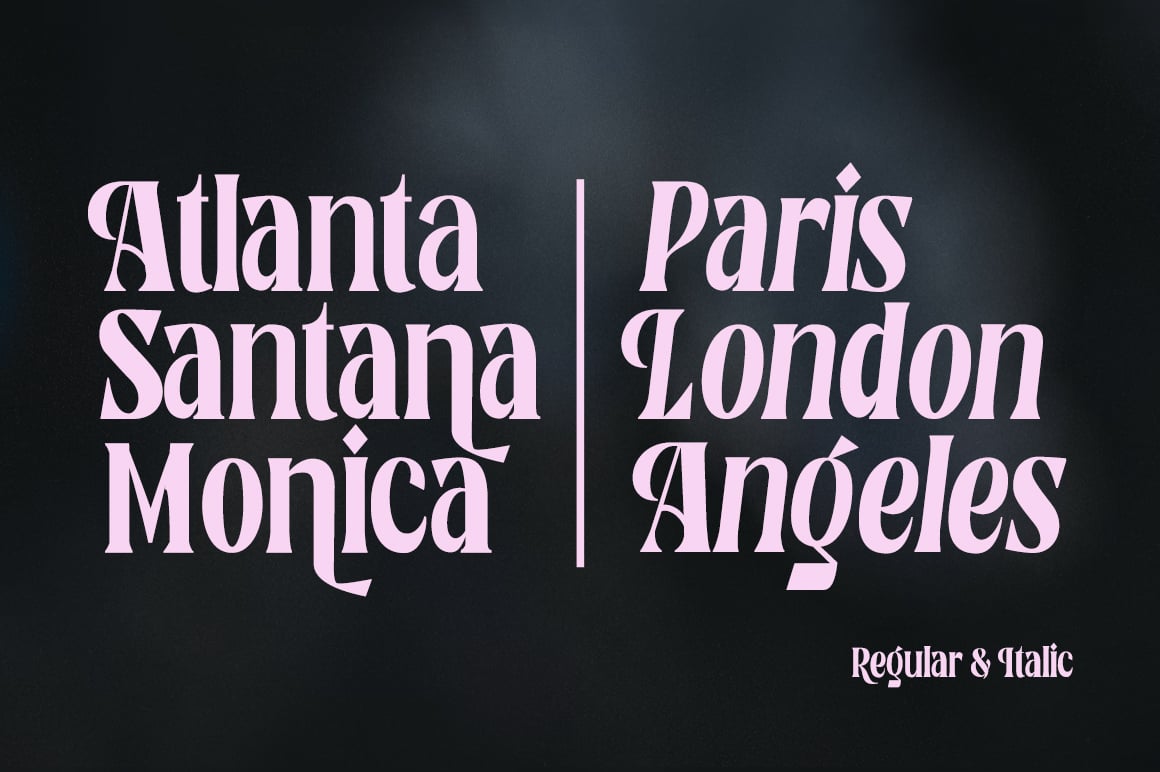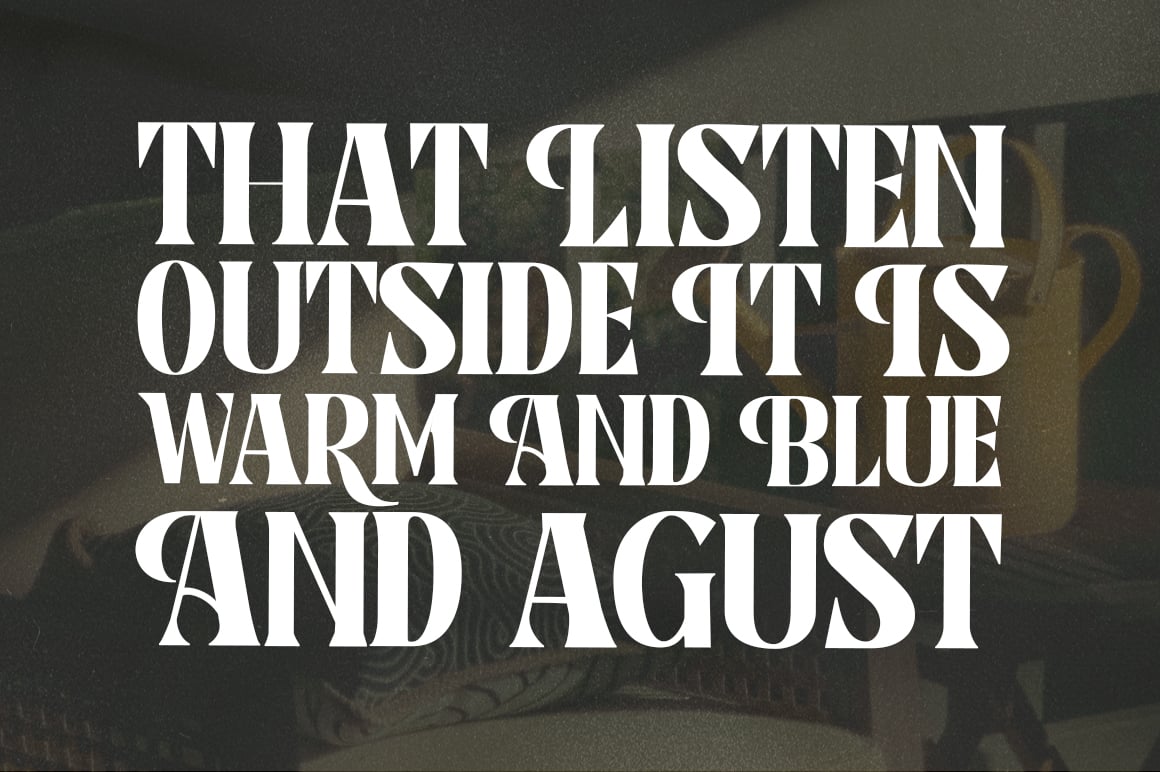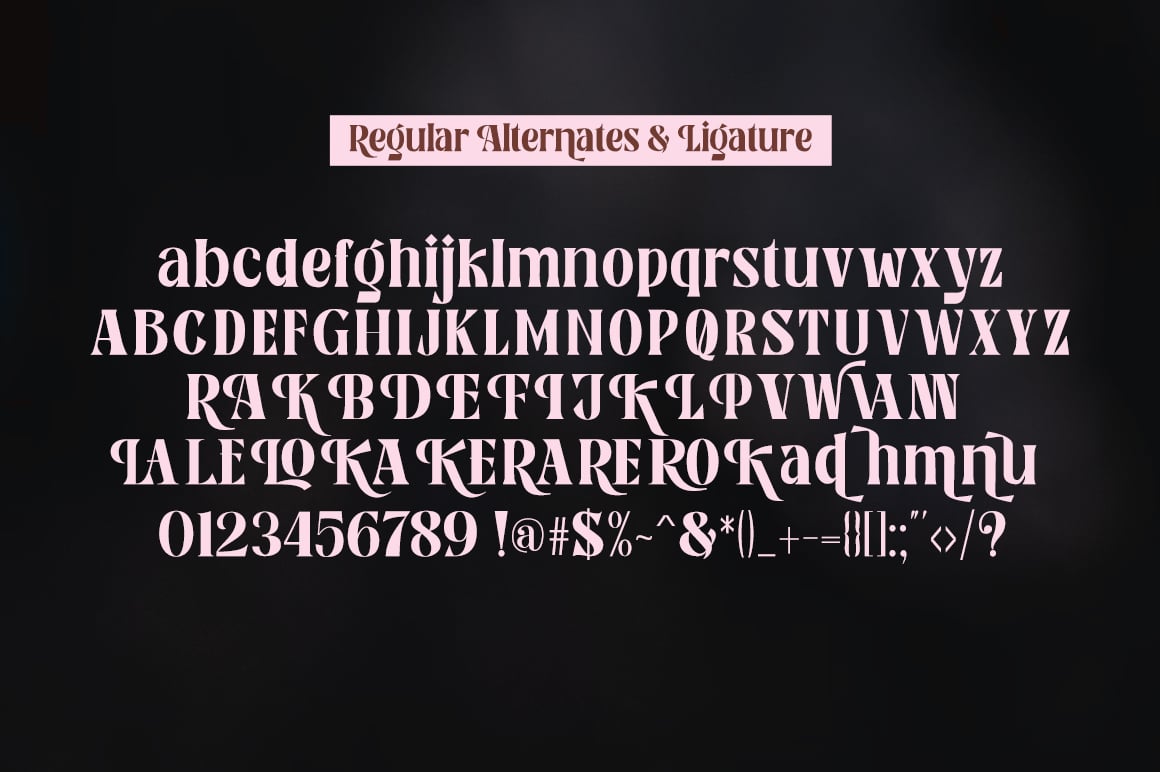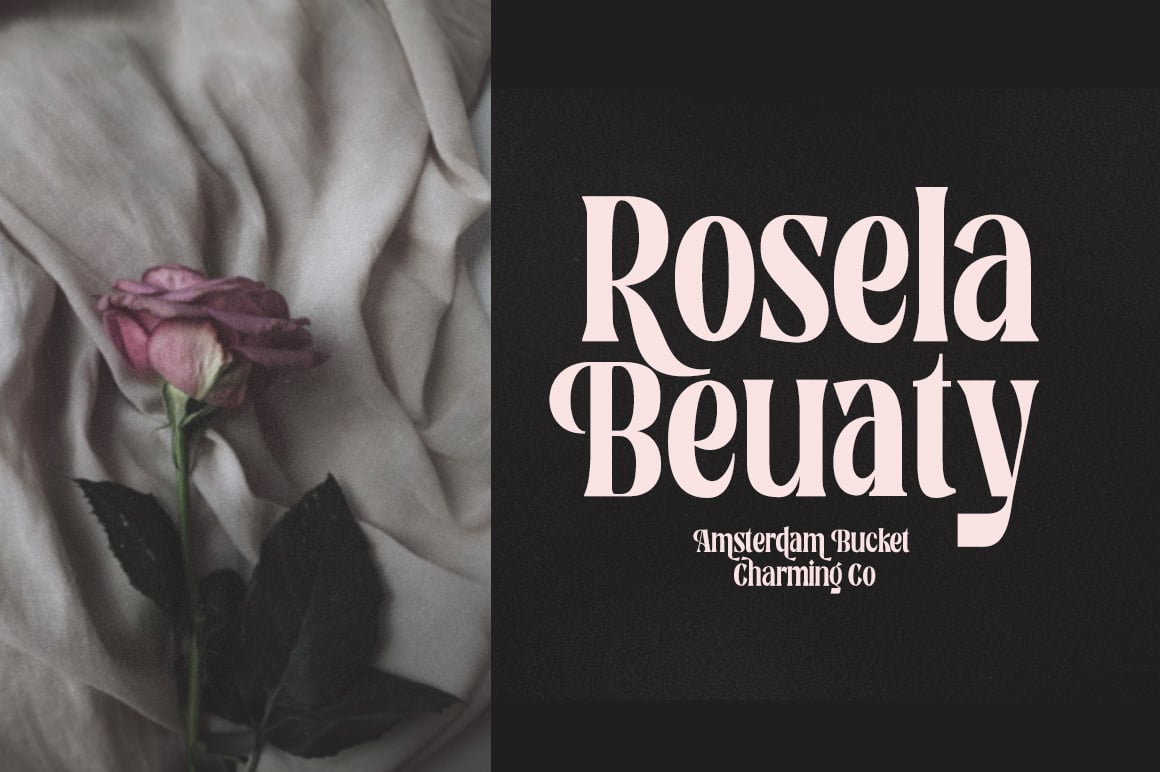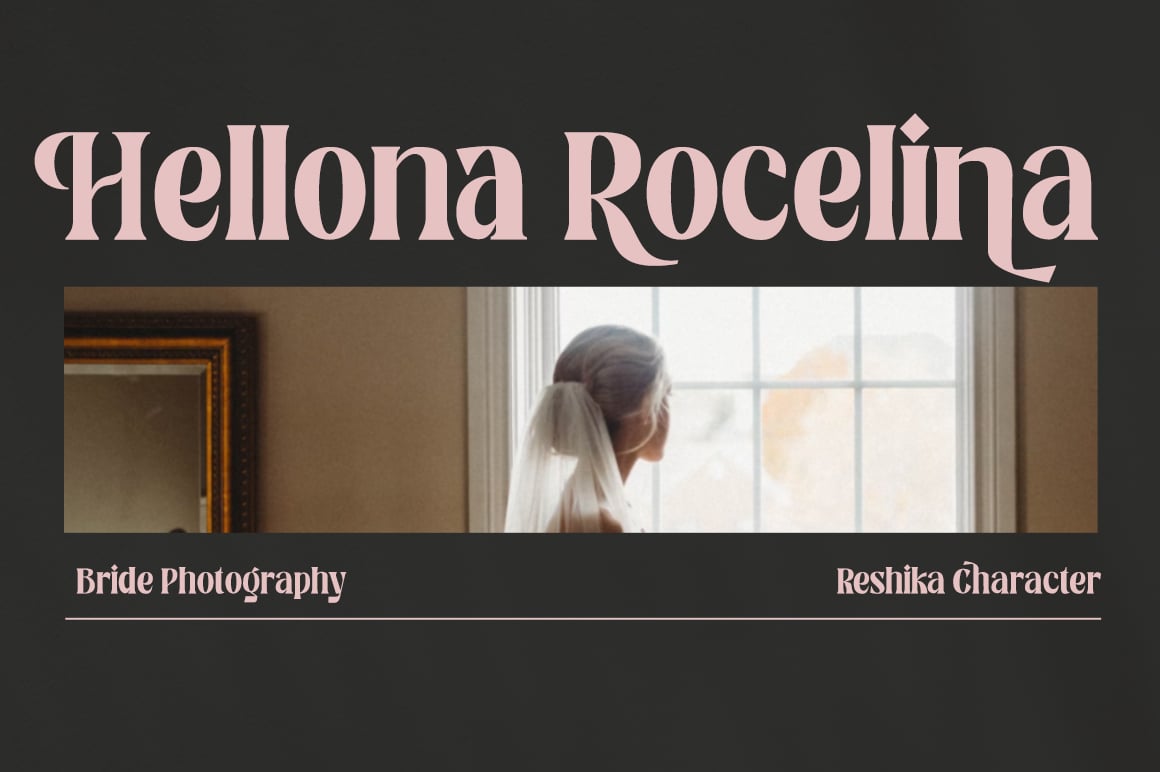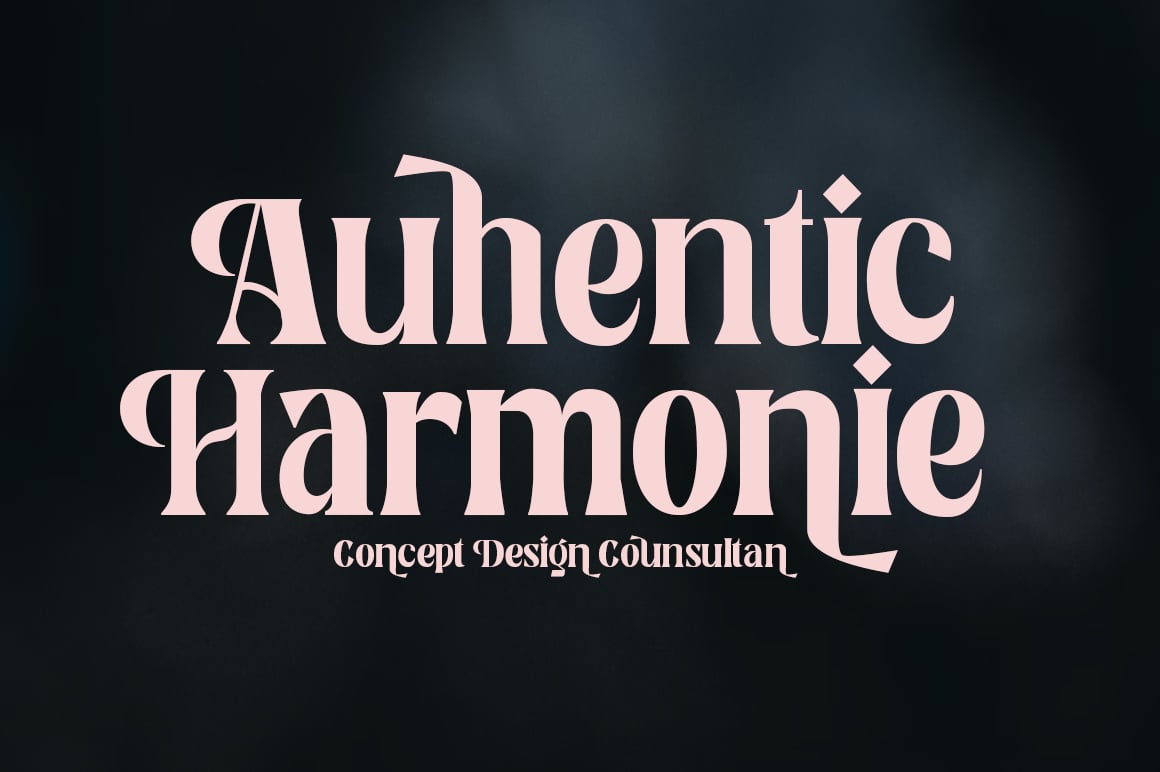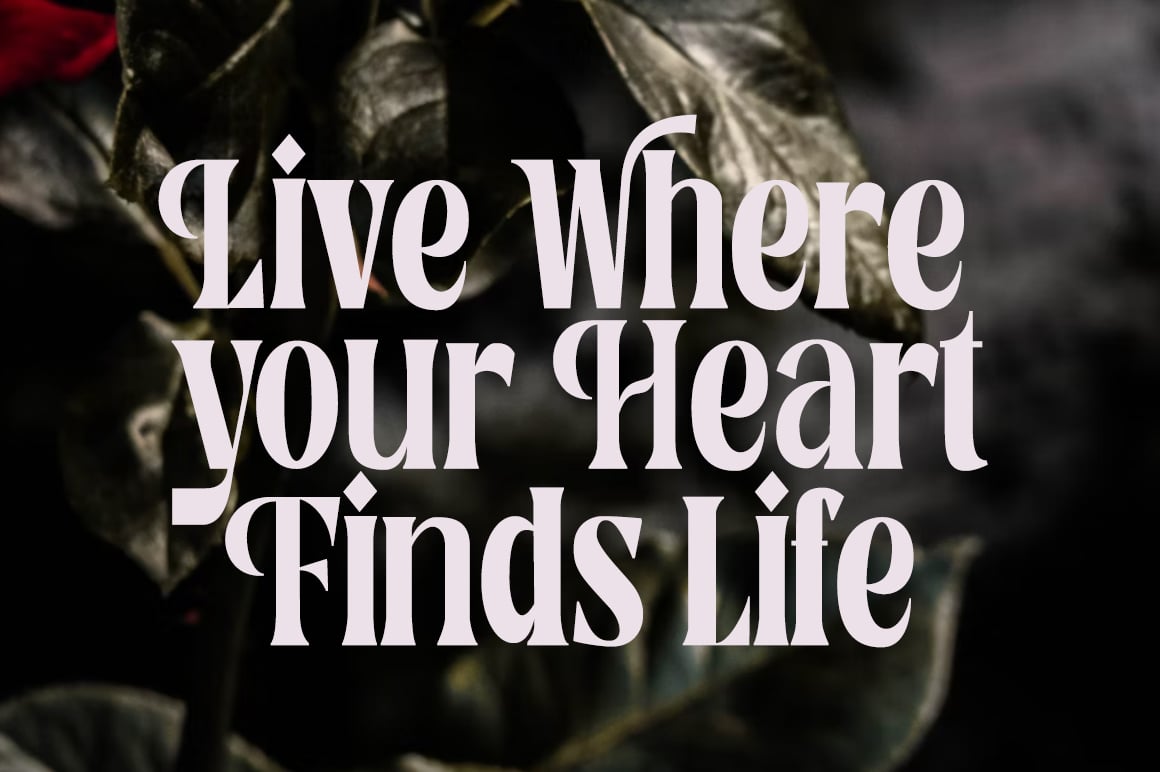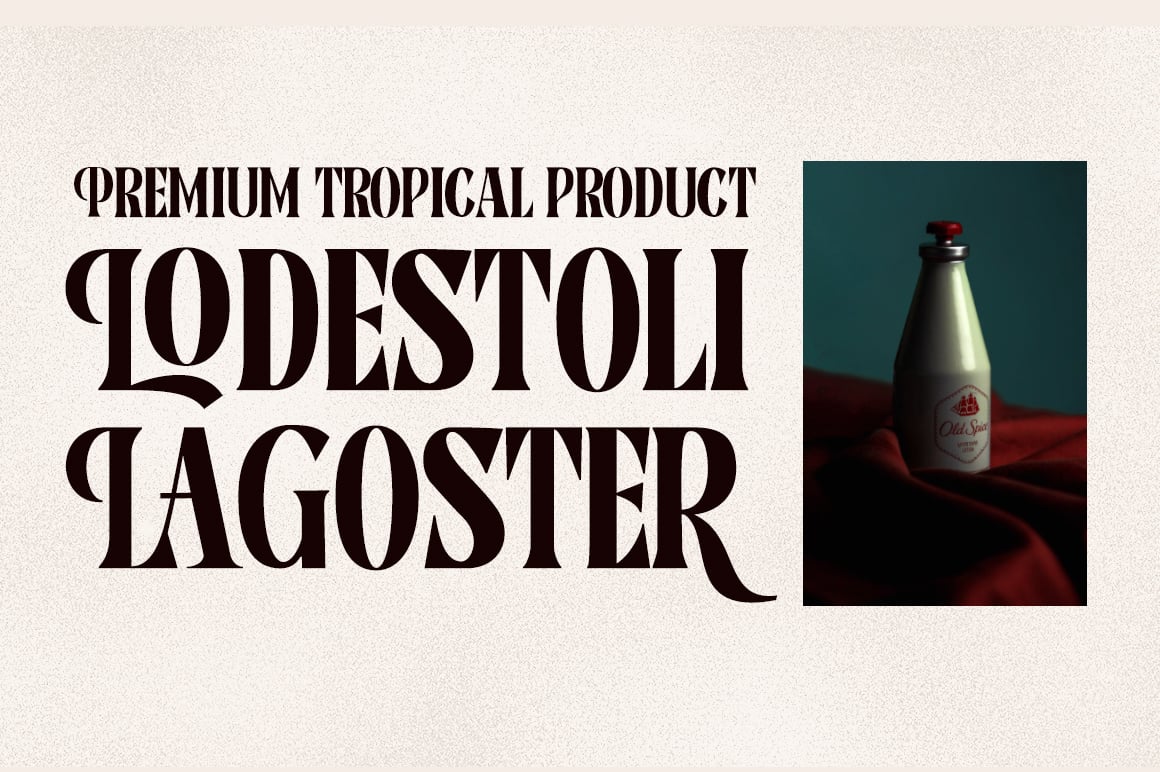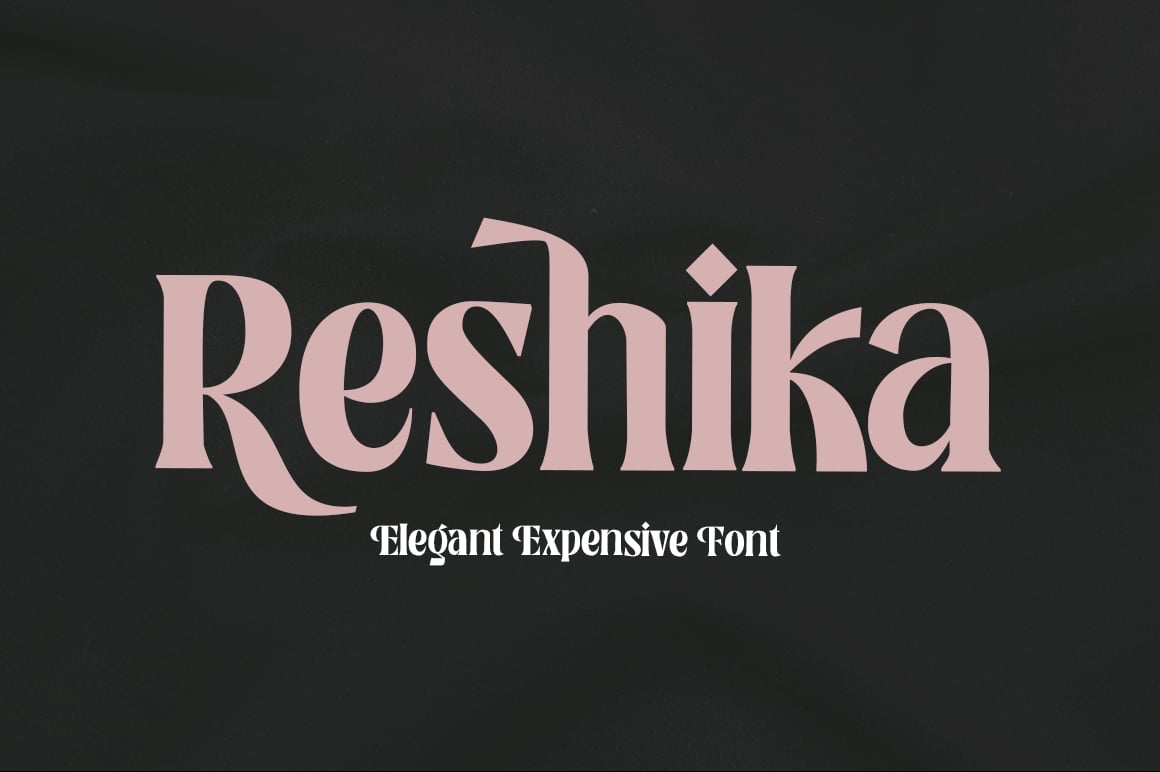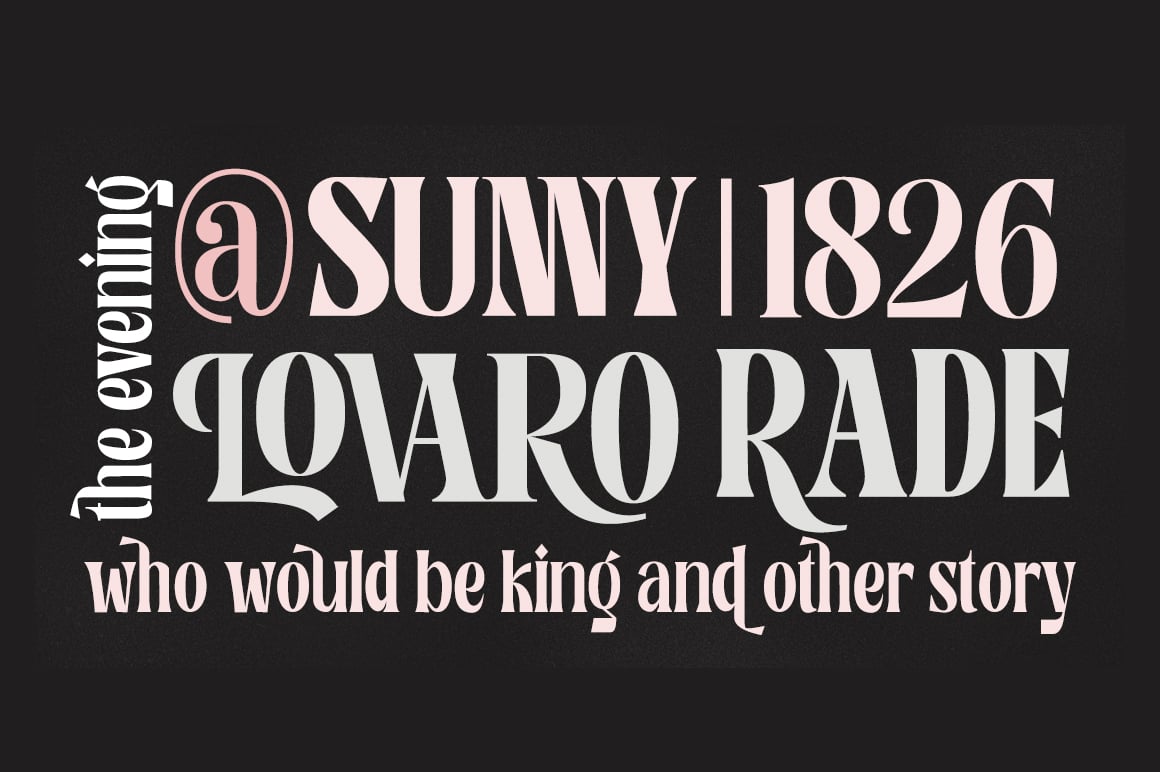
Reshika Font
Reshika Serif We are proud to present our new font. New Regular Serif and Natural Italic with classy and modern style make this font looks elegant, natural and stylish.
Reshika is perfect for invitations, logos & branding, photography, advertisements, watermarks, social media posts, product packaging, product designs, labels, wedding designs, stationery, special events or anything needed to create a theme.
Reshika is built with OpenType features and includes leading and trailing language styles, alternate characters for most lowercase letters, numbers, punctuation, alternates, ligatures and also supports other languages.